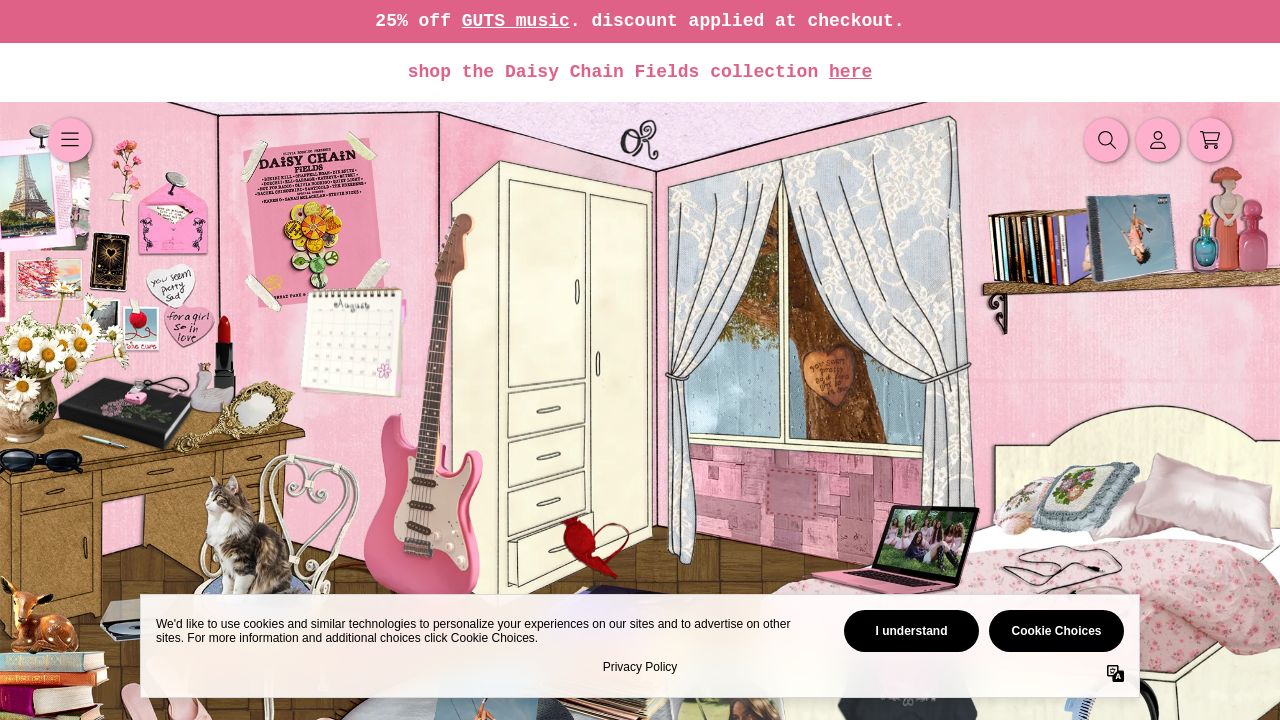
At the Olivia Rodrigo Official Store, the choice of typography reflects the brand's vibrant and youthful identity. The primary font, just-like-heaven, adds a personal touch, resonating with fans who appreciate authenticity. It’s paired with fallback fonts like Roboto and Segoe UI, ensuring readability while maintaining a stylish aesthetic. This blend of fonts supports the store's appeal to a diverse audience seeking exclusive music and merchandise.
The primary font used on store.oliviarodrigo.com is just-like-heaven. Fallback fonts include Roboto, Segoe UI, Consolas, and Menlo.
Just-like-heaven offers a unique style that sets the brand apart, whereas fallback fonts like Roboto and Segoe UI are widely used and easily accessible.
The just-like-heaven font is used in a weight of 400, providing a consistent look across different elements of the site.